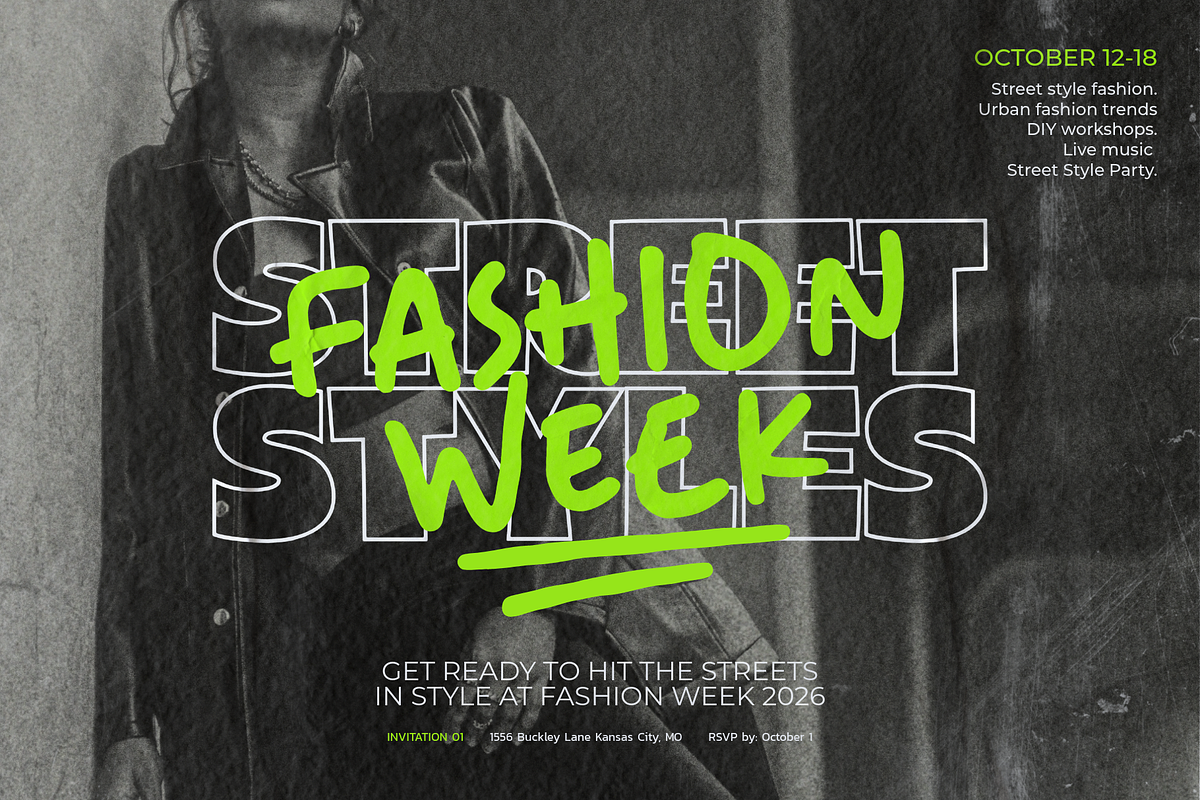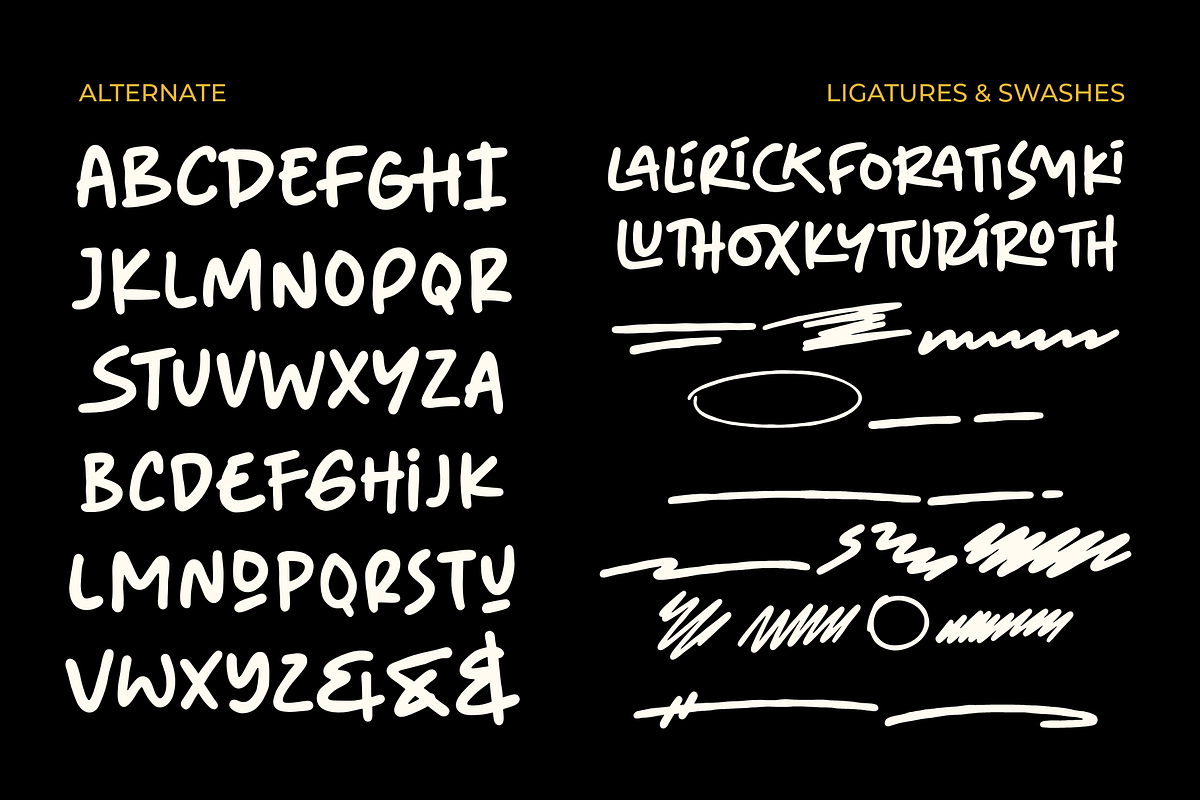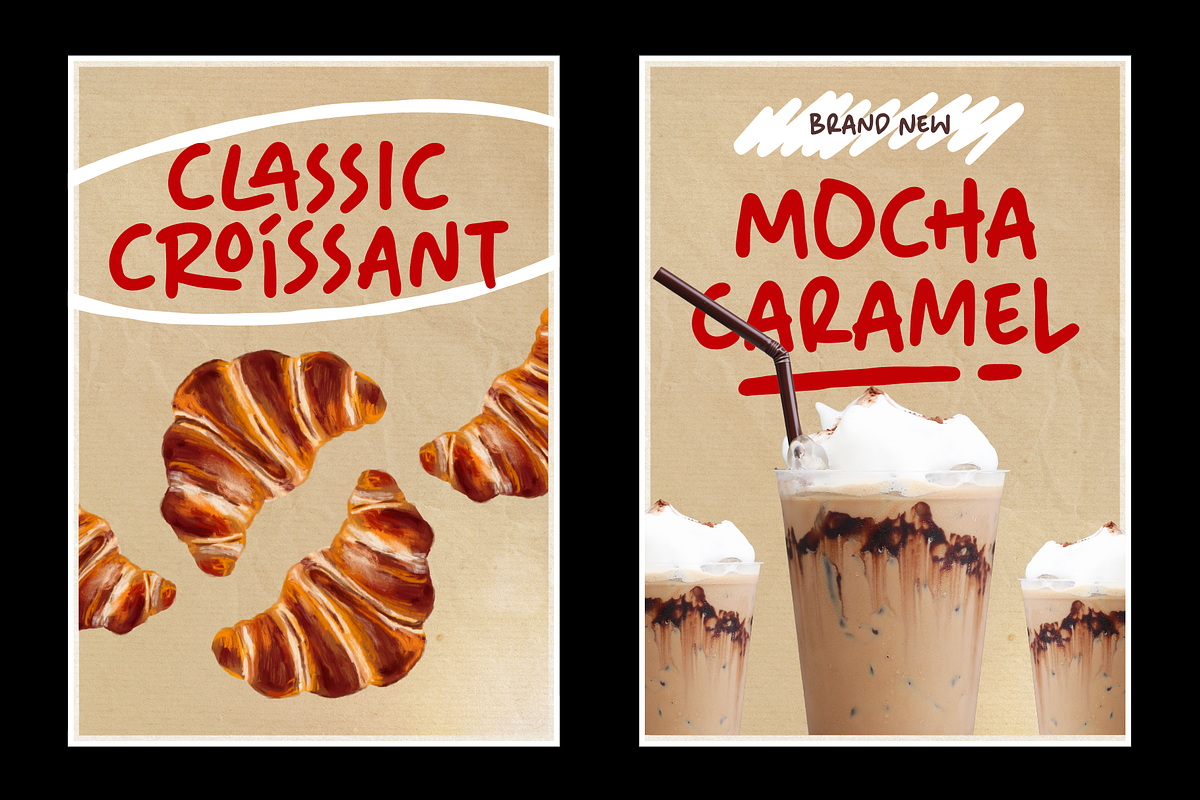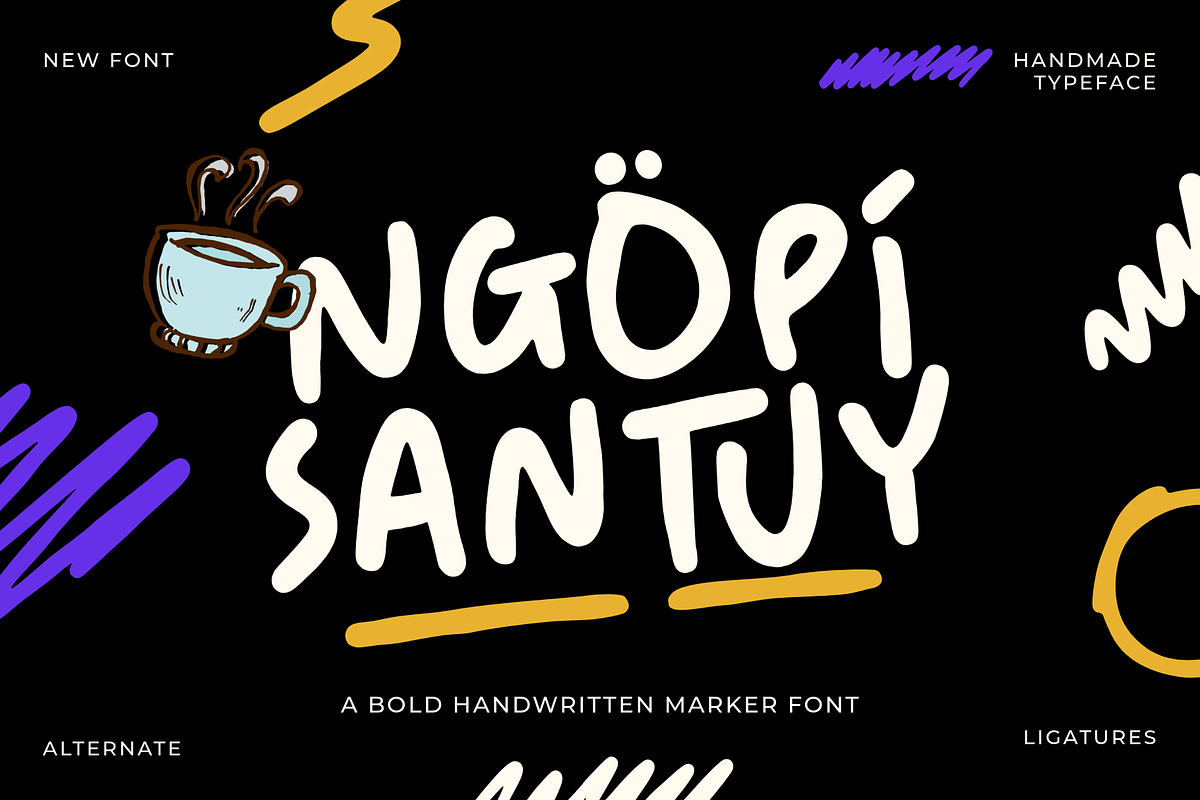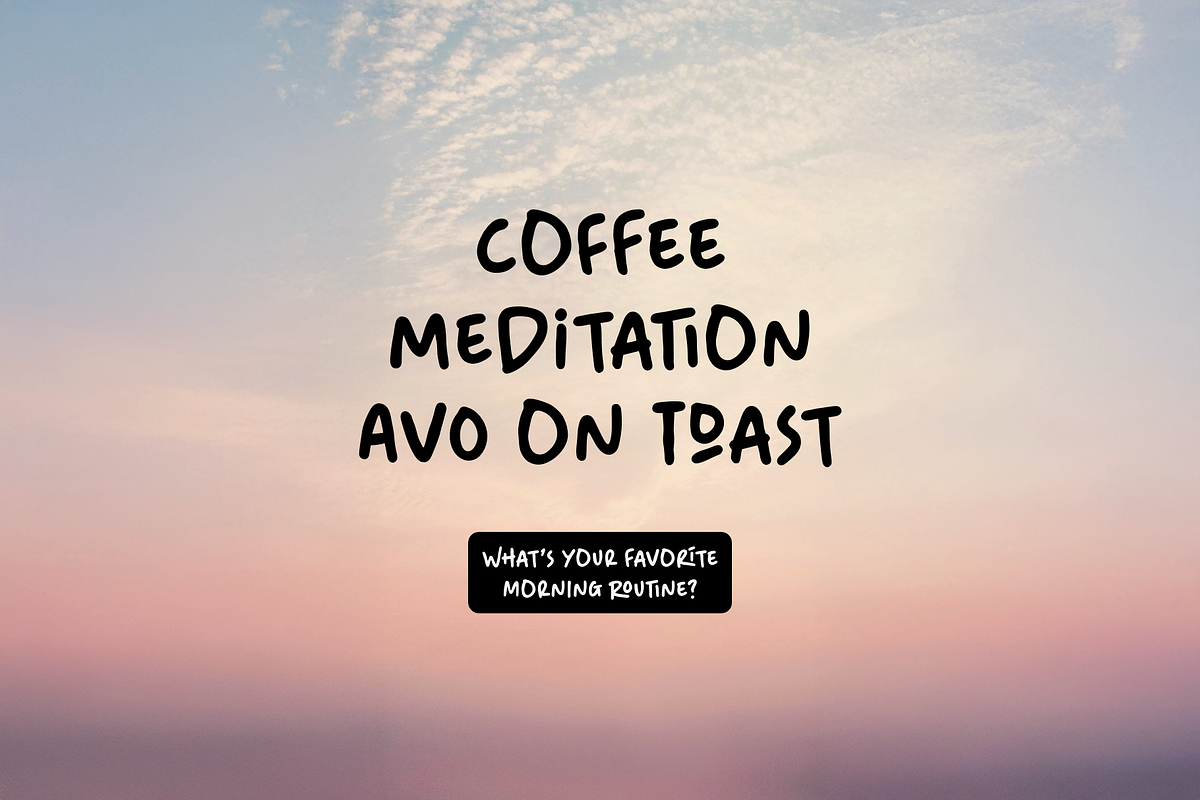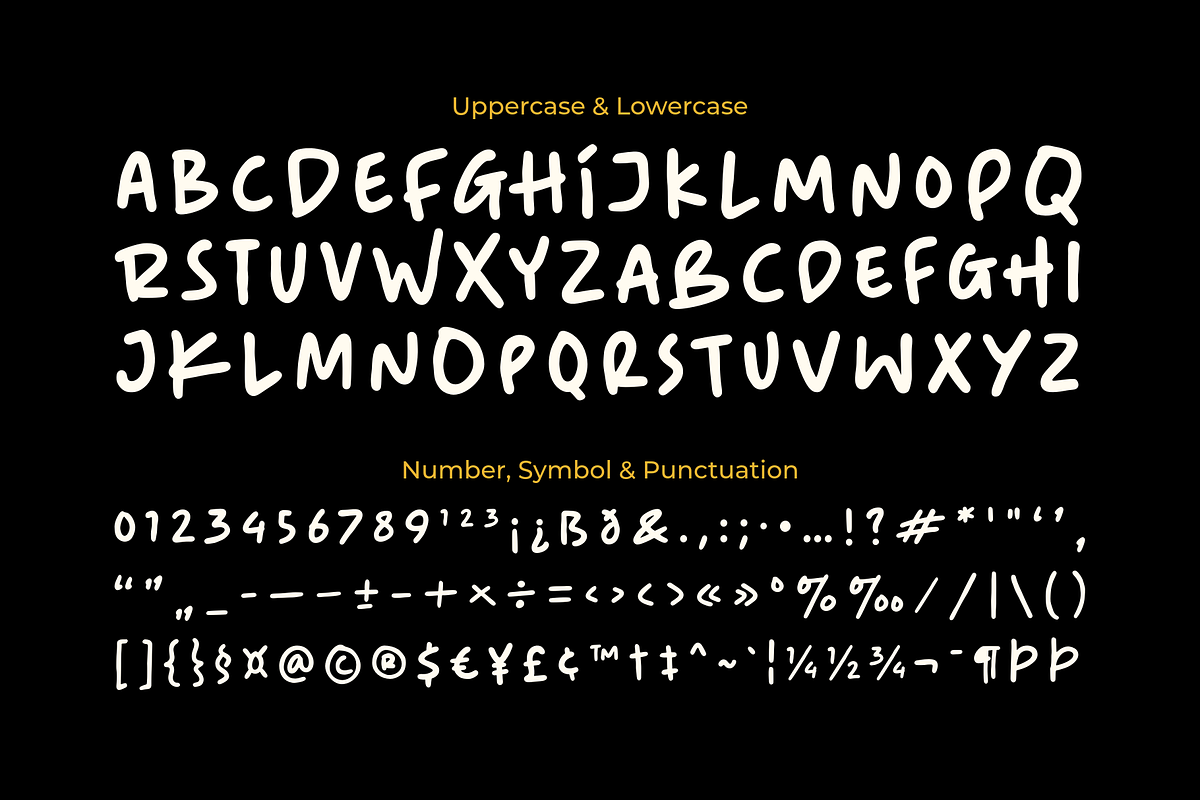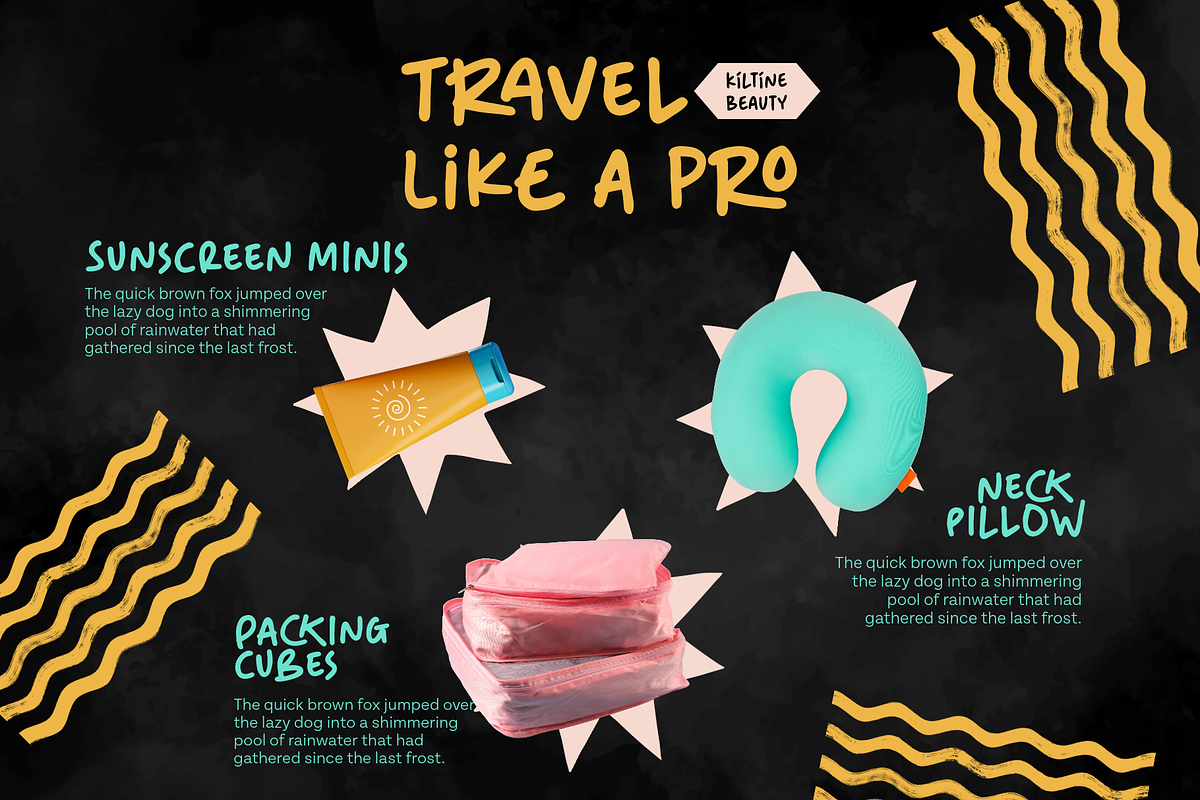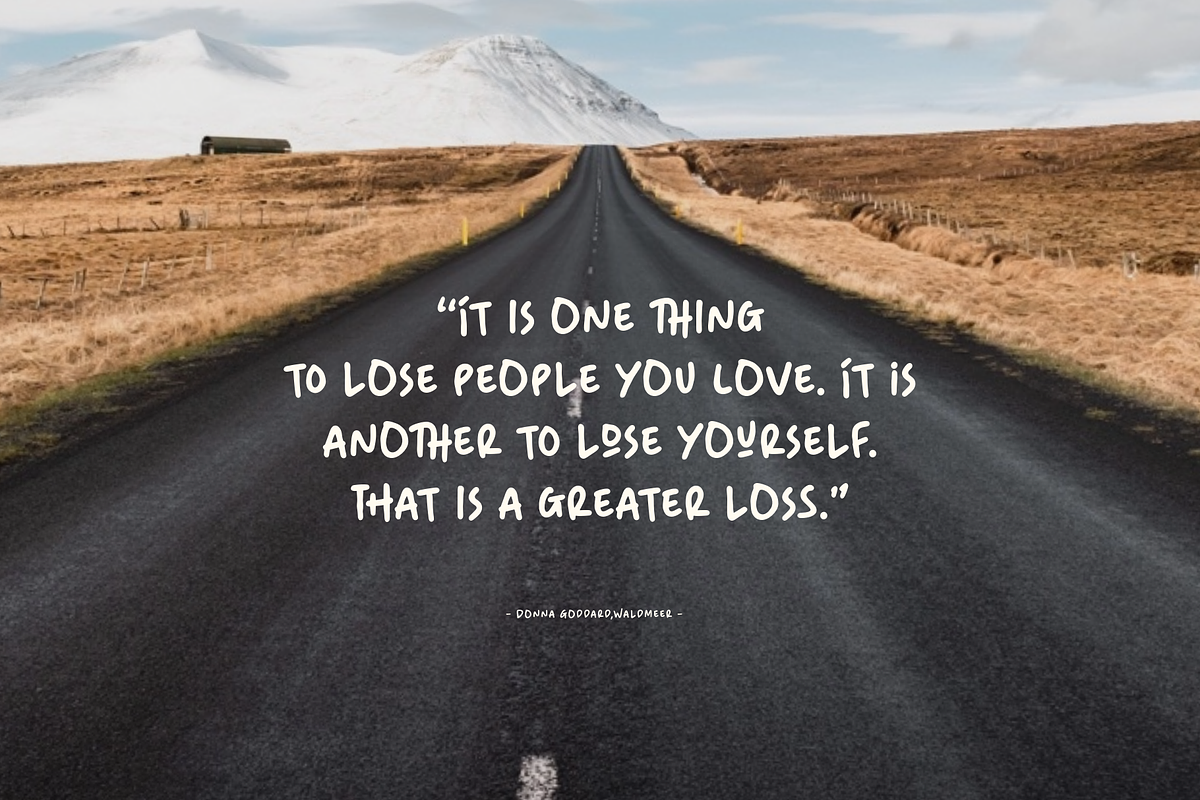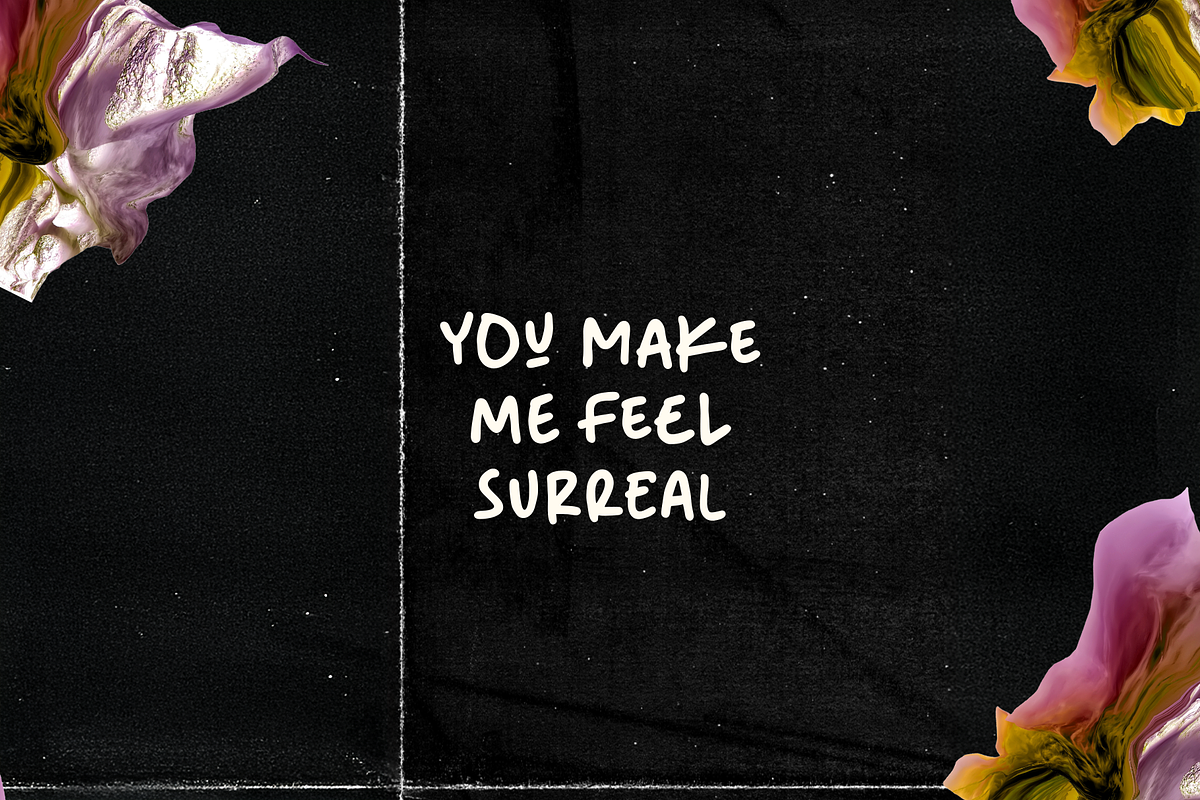
Ngopi Santuy - A Marker Font
Ngopi Santuy is a bold handwritten marker font that brings casual energy and chill vibes to your design. Inspired by hand-drawn coffee shop signs and laid-back lettering styles, this font blends playful imperfection with bold confidence.
Perfect for logos, posters, packaging, t-shirts, quotes, and social media graphics, Ngopi Santuy makes your text look effortlessly cool and friendly. With alternates and ligatures included, you can easily mix and match for a more natural, handwritten feel.
Whether you’re designing for a coffee brand, lifestyle project, or creative merchandise, Ngopi Santuy adds that handmade touch that feels warm, fun, and full of personality.
- A set of uppercase and lowercase glyphs
- Number, symbol, and punctuation
- Ligatures & Swashes